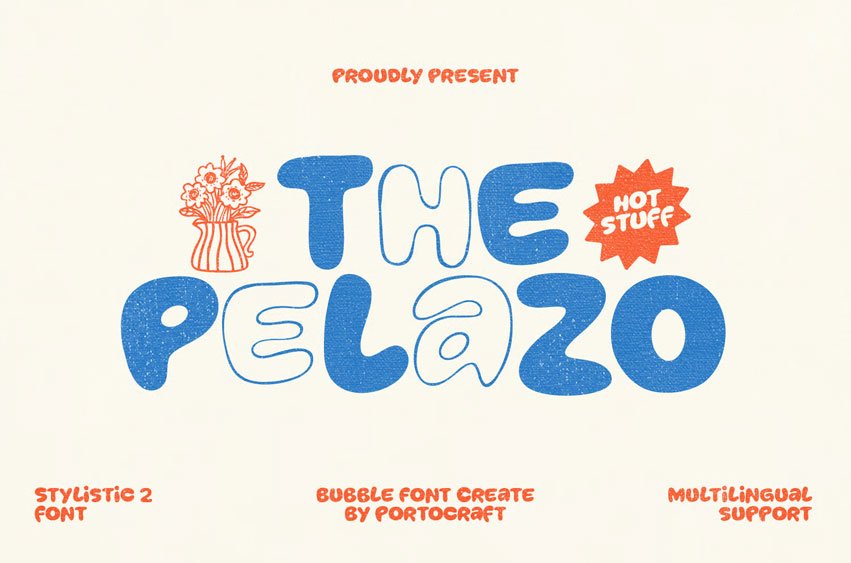
The Pelazo Font Step into a world of vibrant nostalgia with The Pelazo, a charming bubble display font designed to bring a fun, groovy energy to your creative toolbox. Featuring thick, pillowy letterforms and smooth rounded curves, this font perfectly captures the carefree, artistic aesthetic of the 1970s while maintaining a clean, modern adaptability.
With its bold look and organic, slightly textured finish, it is the ultimate font choice for creators looking to infuse their layouts with warmth, unique personality, and a cheerful retro vibe.
Key Font Features:
- 2 Distinctive Styles (Solid & Outline): Packed with a unique stylistic variant configuration, allowing you to mix, match, and layer letters to create dynamic, custom-looking headlines.
- Thick Bubble Silhouette: Heavy, rounded letterforms designed for maximum visual impact and high readability in large display sizes.
- Multilingual Support: Engineered with a comprehensive glyph set to seamlessly accommodate various international languages.
- Full Character Mapping: Includes complete uppercase, lowercase, numbers, and core punctuation marks.
Ideal For:
- Creative Packaging Design: Eye-catching product labels for artisanal snacks, juices, sodas, and handmade goods.
- Merchandise & Novelties: Designing striking custom stickers, retro posters, enamel pins, tote bags, and mugs.
- Social Media & Web Graphics: Perfect for bold Social Media quotes, youth-centric website banners, and dynamic video thumbnails.
- Event Stationery: Adds a whimsical, nostalgic touch to party invitations, playful menus, and creative greeting cards.